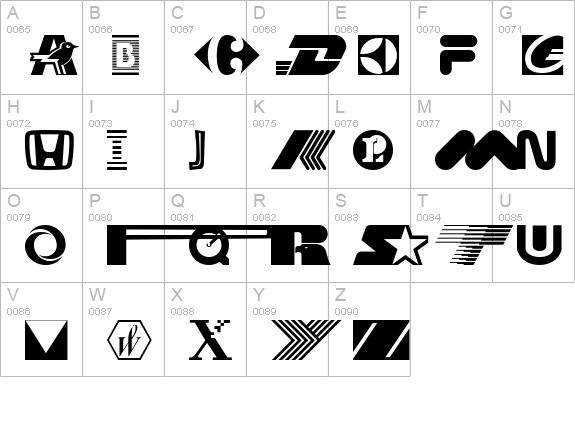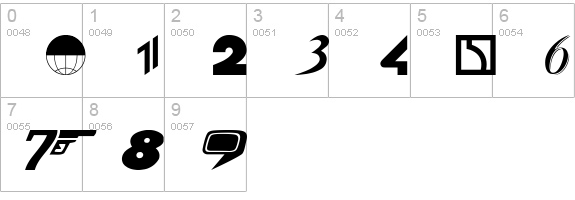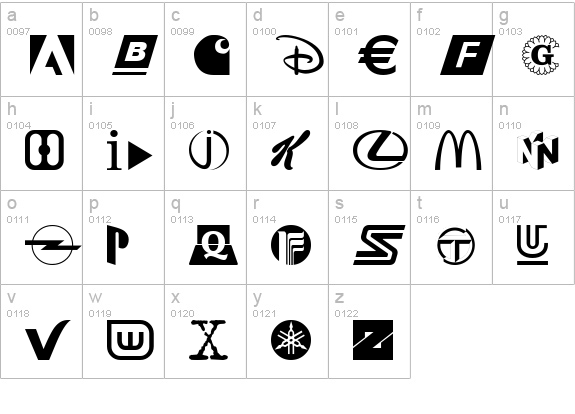
COnsume font is a sleek and modern typeface that exudes sophistication and elegance. With its clean lines and sharp edges, this font is perfect for a wide range of design projects, from branding to editorial design. The versatility of COnsume font makes it a must-have for any designer looking to add a touch of class to their work. Best of all, COnsume font is completely free to download at FontsMarket.com. This means that you can add this stunning font to your collection without having to spend a dime. Don't miss out on the opportunity to elevate your designs with the stylish and contemporary COnsume font, available for free download now.